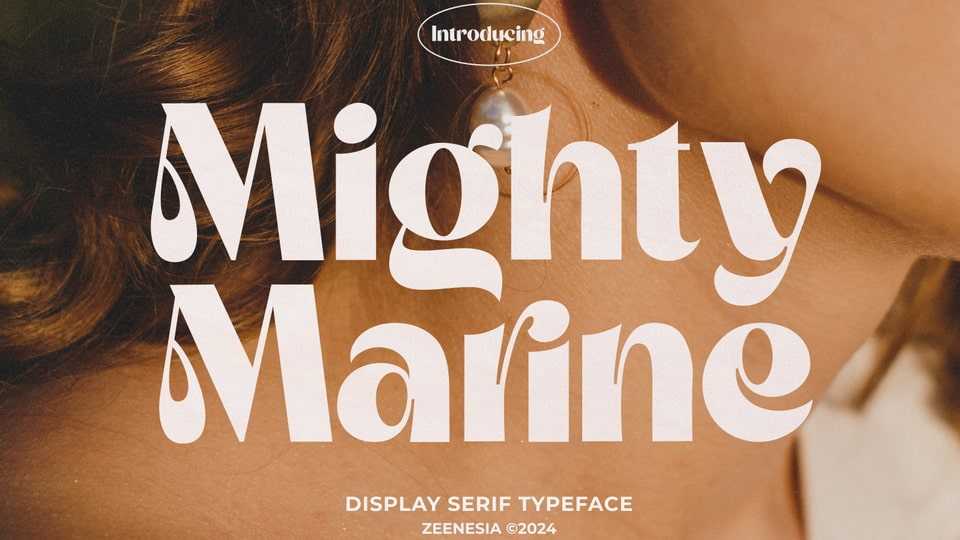
Download Mighty Marine font, an audaciously bold, vintage-inspired sans serif typeface that effortlessly marries strength and softness.
Designer: Zeenesia Studio